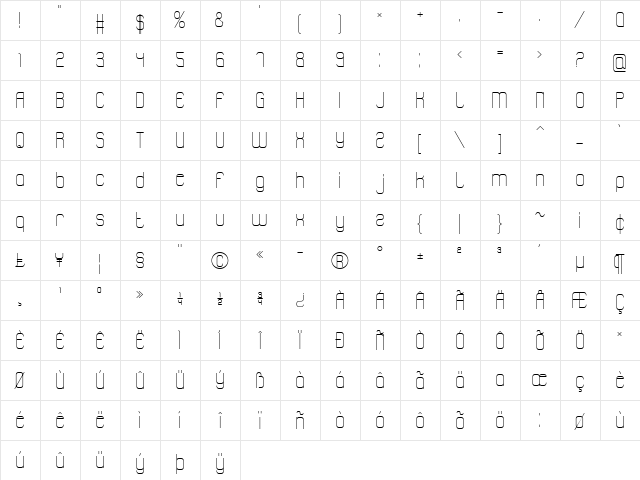
atthewindowPRO Regular
Design Context for atthewindowPRO Typeface
atthewindowPRO takes a measured approach to typography — its balanced proportions and neutral character make it a reliable workhorse for both digital and print work.
Pro Tip: Use atthewindowPRO in both headline and body roles to test its range before committing to a single application.